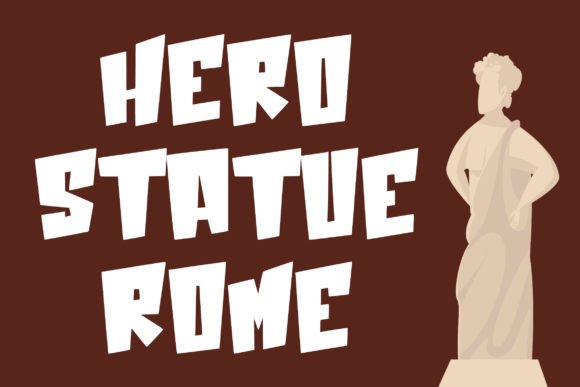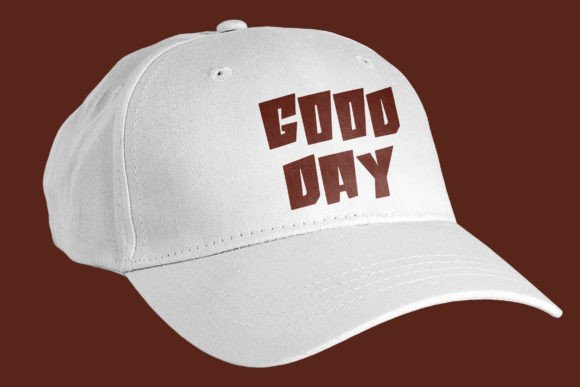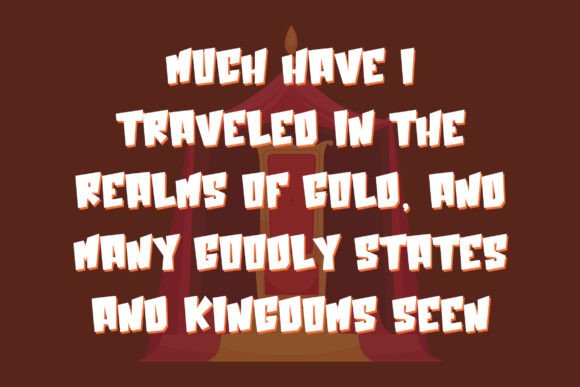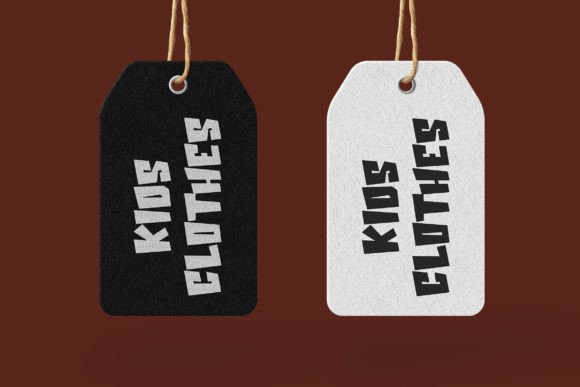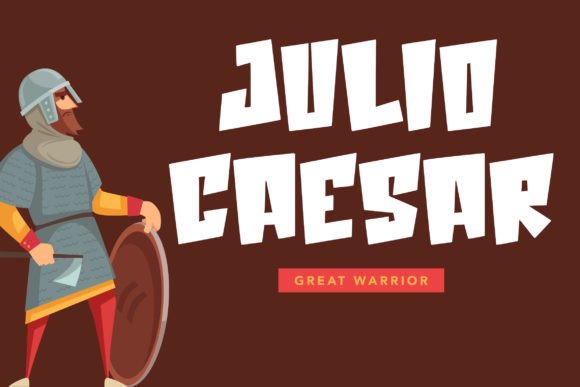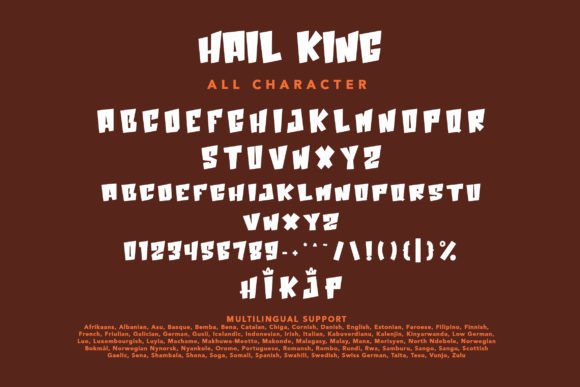
Introduction to Hail King Font
As designers, we’ve all been there – staring at a blank canvas, trying to bring a concept to life, but struggling to find the perfect font to set the tone. That’s when the magic happens – you stumble upon a font that makes your design come alive. For us, that font is Hail King Font – a playful display font that’s as versatile as it is charming.
What makes Hail King Font so special? For starters, its distinctive handwritten characters add a touch of personality to any project. Whether you’re working on branding projects, logos, or wedding designs, this font is sure to make your creations stand out. And the best part? It’s a high-quality design resource that’s free to download, making it an absolute steal for any designer.
With its transparent background and endless creative possibilities, Hail King Font is the ultimate tool for any design project. Whether you’re a seasoned pro or just starting out, this font is sure to become your go-to resource for adding that extra special something to your work.
Key Features of Hail King Font
- High-quality design resource suitable for creative projects, including logos, branding, and typography.
- Features a transparent background, allowing for seamless integration into any design project.
- Includes a range of glyphs and characters, making it a versatile font for a variety of creative applications.
- Designed with a bold, regal aesthetic, perfect for making a statement in any design project.
Honest Review: Hail King Font
As a designer, I’m always on the lookout for high quality design resources to elevate my creative projects. Recently, I had the chance to try out the Hail King Font, and I’m excited to share my honest review.
- Unique and bold design: The Hail King Font has a distinctive, rugged look that’s perfect for adding a touch of edginess to any design project.
- Transparent background: This font is ideal for designs that require a transparent background, making it easy to layer with other elements.
- Limited character set: Unfortunately, the Hail King Font only includes a limited character set, which may not be suitable for designs that require a wide range of characters.
- Not ideal for small text: Due to its bold design, the font may not be the best choice for small text or designs that require a high level of detail.
Overall, I think the Hail King Font is a great addition to any designer’s toolkit, but it’s essential to consider its limitations before using it in a project. With a little creativity and planning, it can be a fantastic resource for designers looking to add some flair to their designs.
Hail King Font
Hail King Font is a high-quality design resource perfect for creative projects that demand a unique touch. With its transparent background, this font is ideal for a variety of applications.
Hail King Font is commonly used in creative projects such as:
- Marketing materials (brochures, flyers, etc.)
- Graphic design projects (posters, business cards, etc.)
Yes, the Hail King Font has a transparent background, making it ideal for designs that require a subtle or textured look. The font’s transparent background also allows for easy layering and blending with other design elements.
Q: Is Hail King Font suitable for high-quality print designs?
Yes, the Hail King Font is designed to be high-quality and suitable for print designs. The font’s crisp and clear lines, combined with its high-resolution vector format, make it perfect for printing on a variety of materials, including business cards, brochures, and posters.